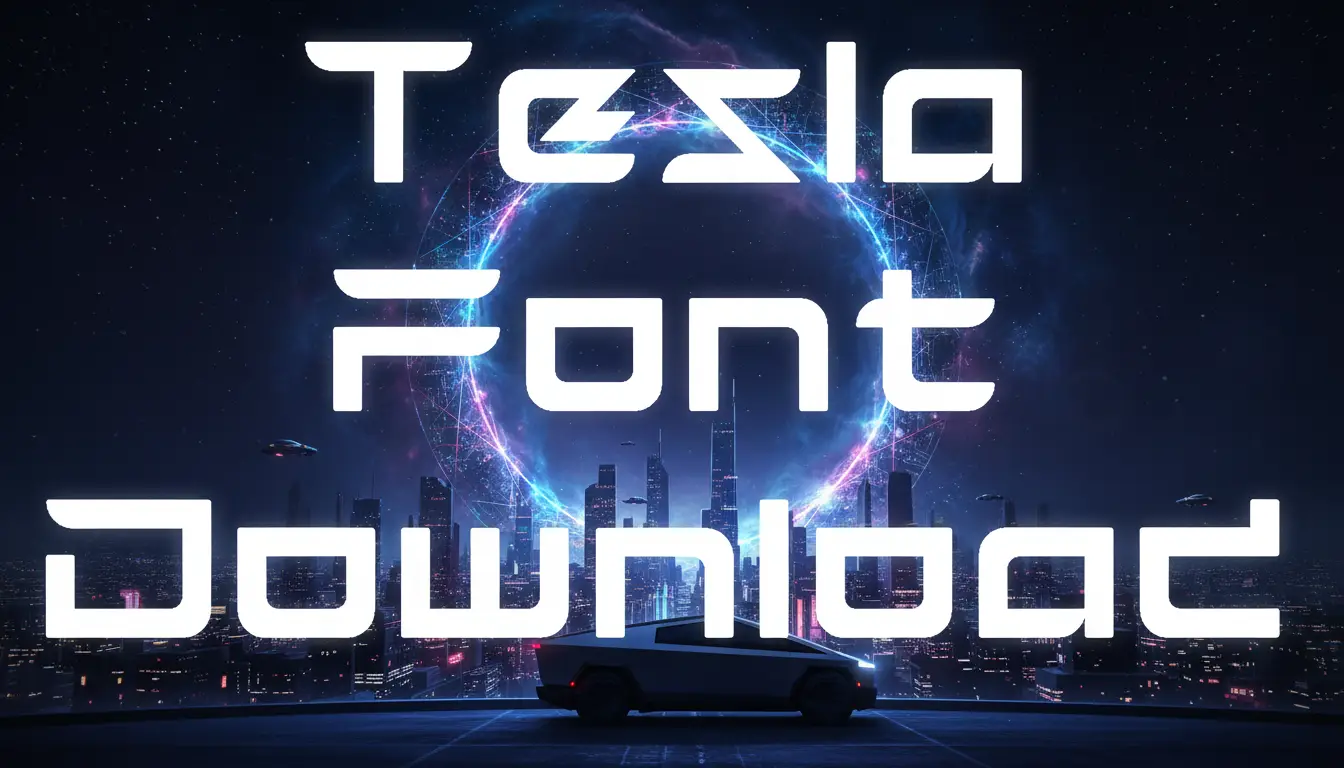
Tesla Font
Tesla is a techno font created by KAYOver. Squared-off, geometric letters give it a digital, high-tech feel. It's a free download, and you can try it with your own text in the preview above first.
What You Can Type With Tesla
You get every letter from A to Z in both cases and all the numbers from 0 to 9, which means Tesla can handle full sentences, dates and prices. Everyday marks like &, !, ? and @ are there too. Thanks to its accented letters, it also works for Spanish, French, Portuguese and Italian, not just English.
Where Tesla Works Best
Think of Tesla for gaming logos, tech branding and futuristic posters. Try it on a dark background with a bright accent color for a sharp, modern look.
Does Tesla support accented letters?
Yes. Tesla includes the accented letters needed for Spanish, French, Portuguese and Italian, so it works for more than just English.
What fonts pair well with Tesla?
A simple sans serif like Roboto keeps longer text easy to read next to it.